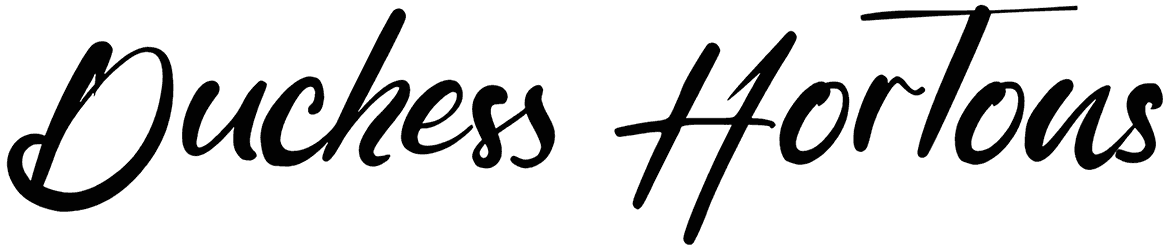
Duchess Hortons Font
When you look at the Duchess Hortons, its stylish form grabs your attention. This script font’s letters seem italic with soft edges, making it an attractive personality. Moreover, the Duchess Hortons font may be applicable for various cases, such as magazine covers, postcards, and branding.